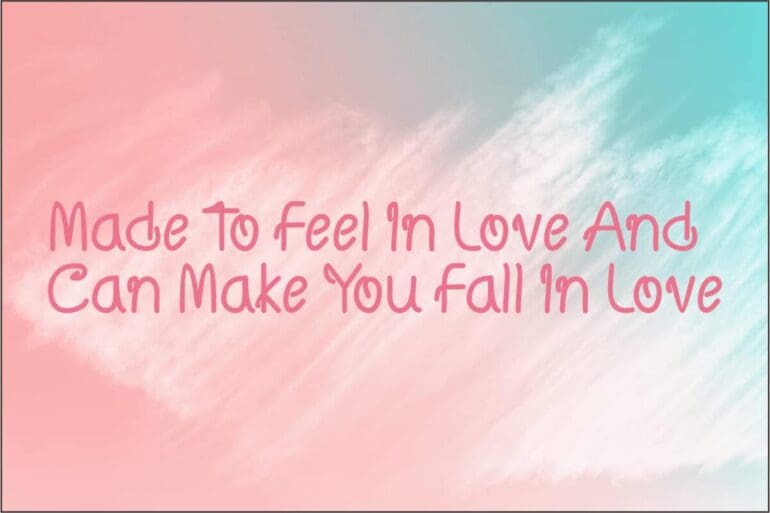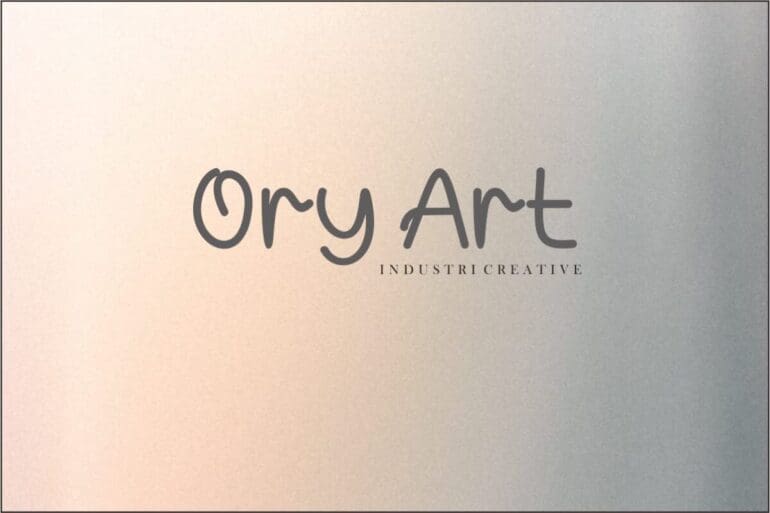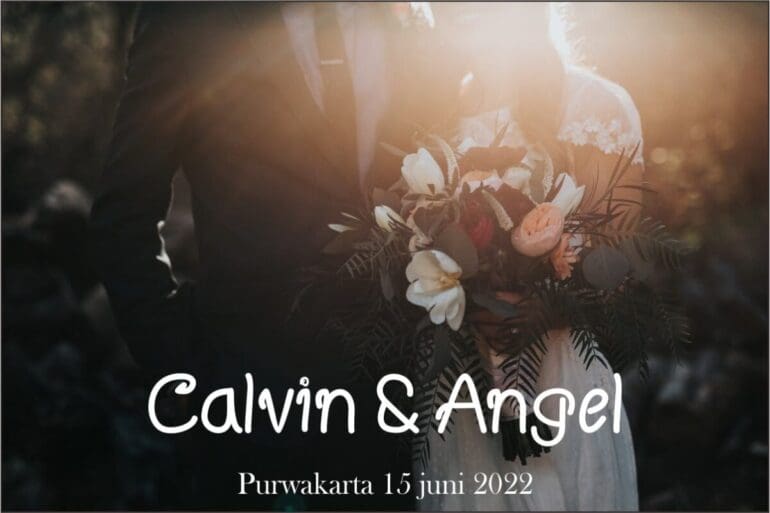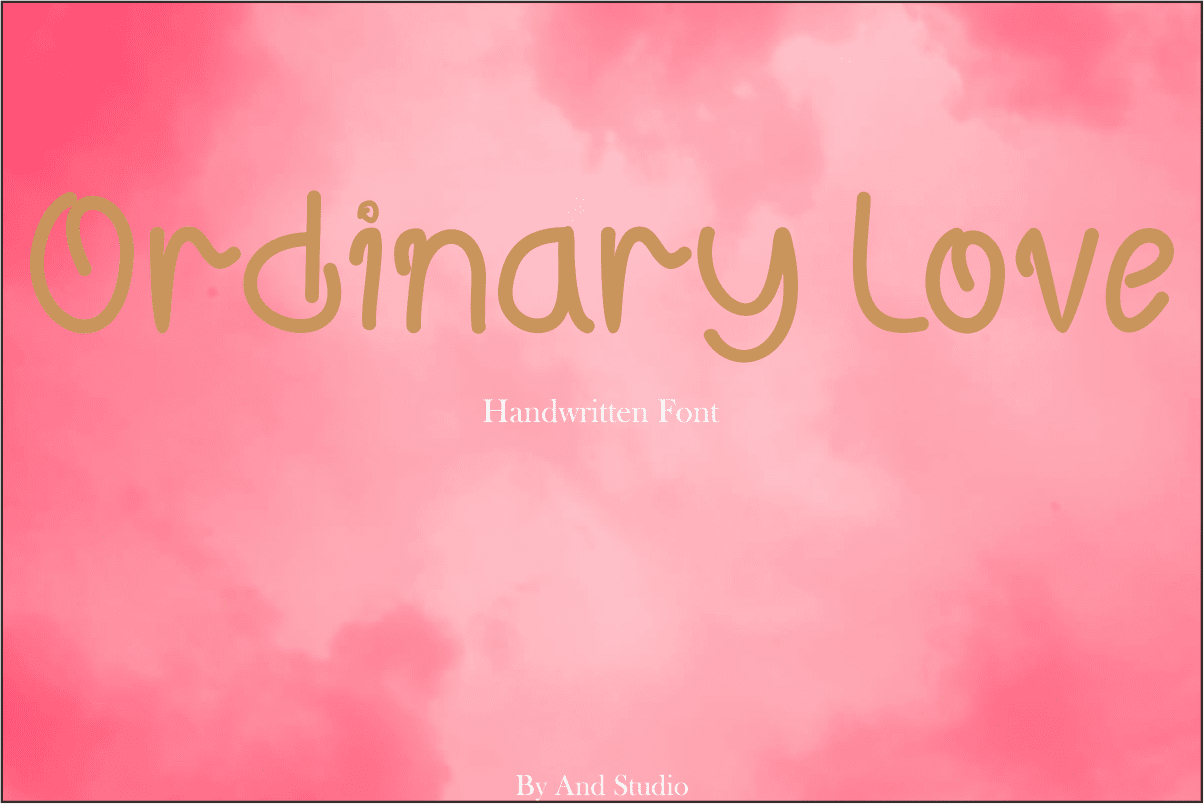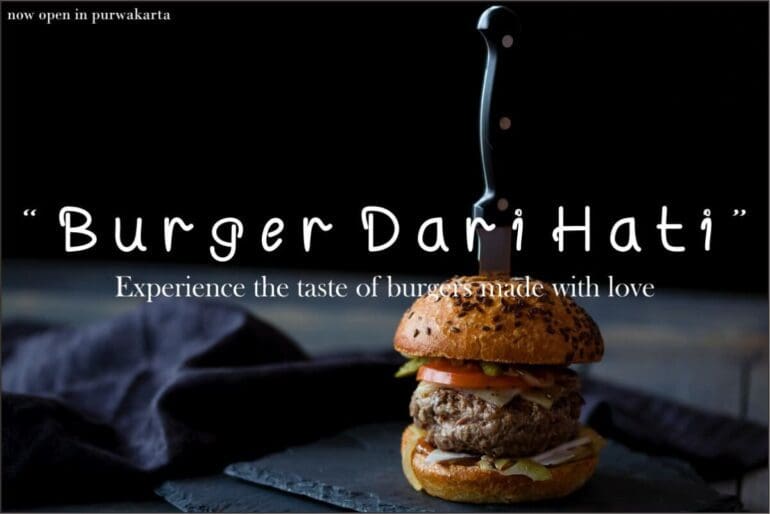
Ordinary Love Font
Ordinary Love this is handwritten font. It’s perfect for your design such as logo, branding, graphic design, photography, product, packaging, social media posts, etc.